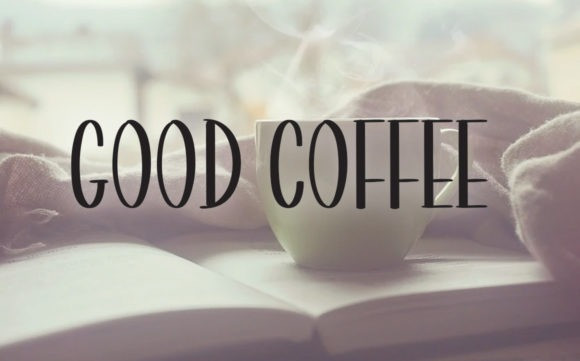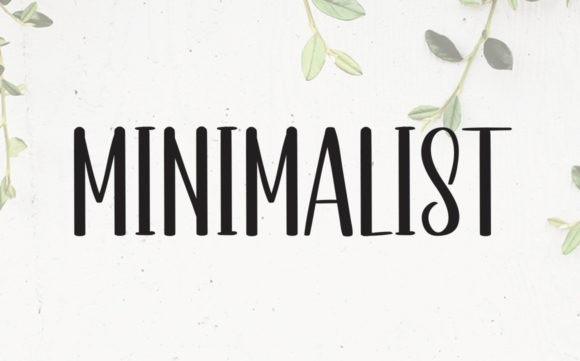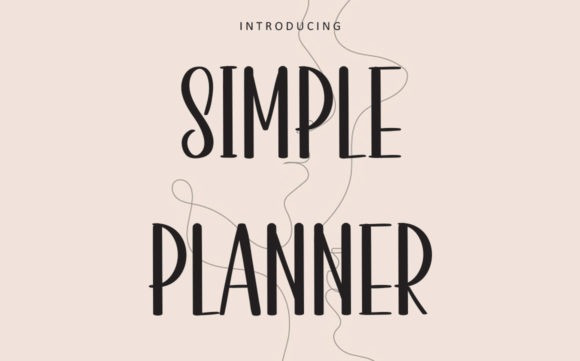
Simple Planner Font
Simple Planner Font is a beautiful and clean handwritten font. Use it for wall displays, wedding invitations, social media post logos, advertisements, product packaging, product designs, labels, photography, watermarks, invitations, stationery, and any project that requires impressive typography.